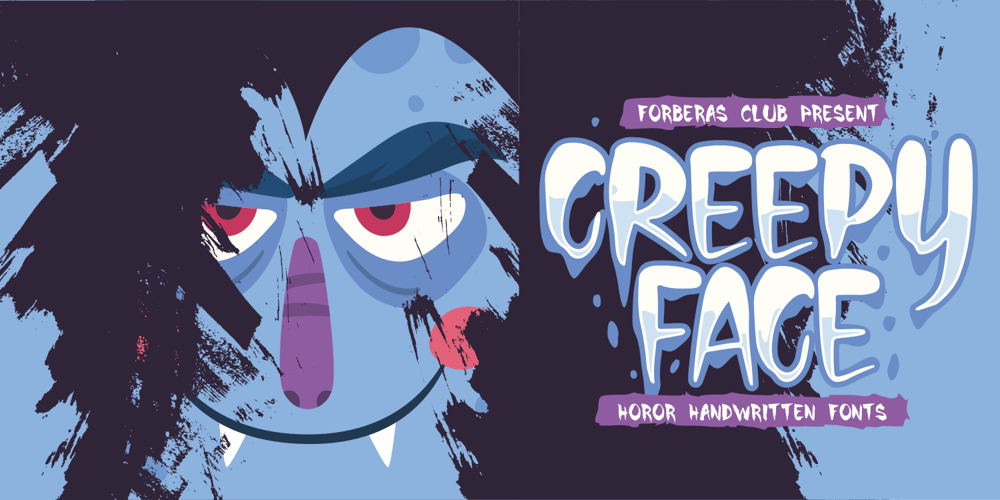
Creepy Face
Creepy Face font
Creepy Face Font Family was designed by ANGGI HERMAWAN and published by Forberas Club. Creepy Face contains 1 styles and family package options. This font was created with horror genre inspiration but packed with cute shapes. Also suitable for children’s horror story books or cartoons. Or maybe you have something interesting that you are interested in using this font? Hope you like it.